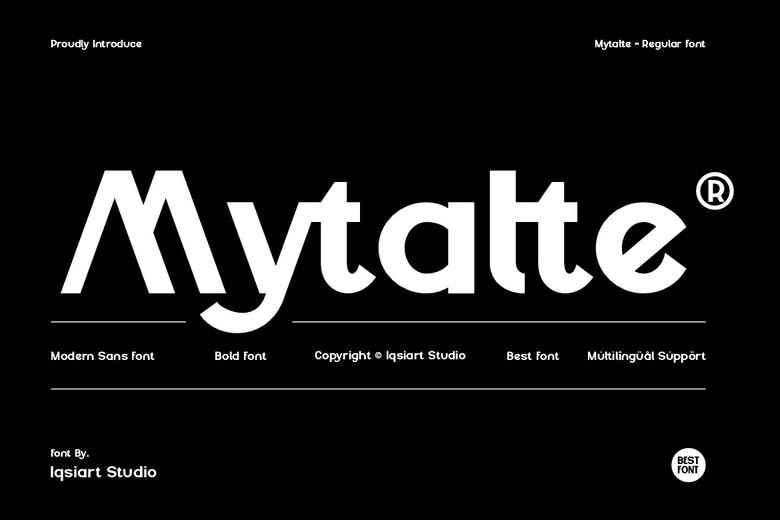
Mytalte Font
Mytalte is a bold sans-serif font with strong lines, geometric details, and sharp angles. Its distinct shapes make headlines and logos stand out instantly.
Mytalte is perfect for tech startups, sports logos, modern clothing, magazine headers, posters, and bold social media campaigns.